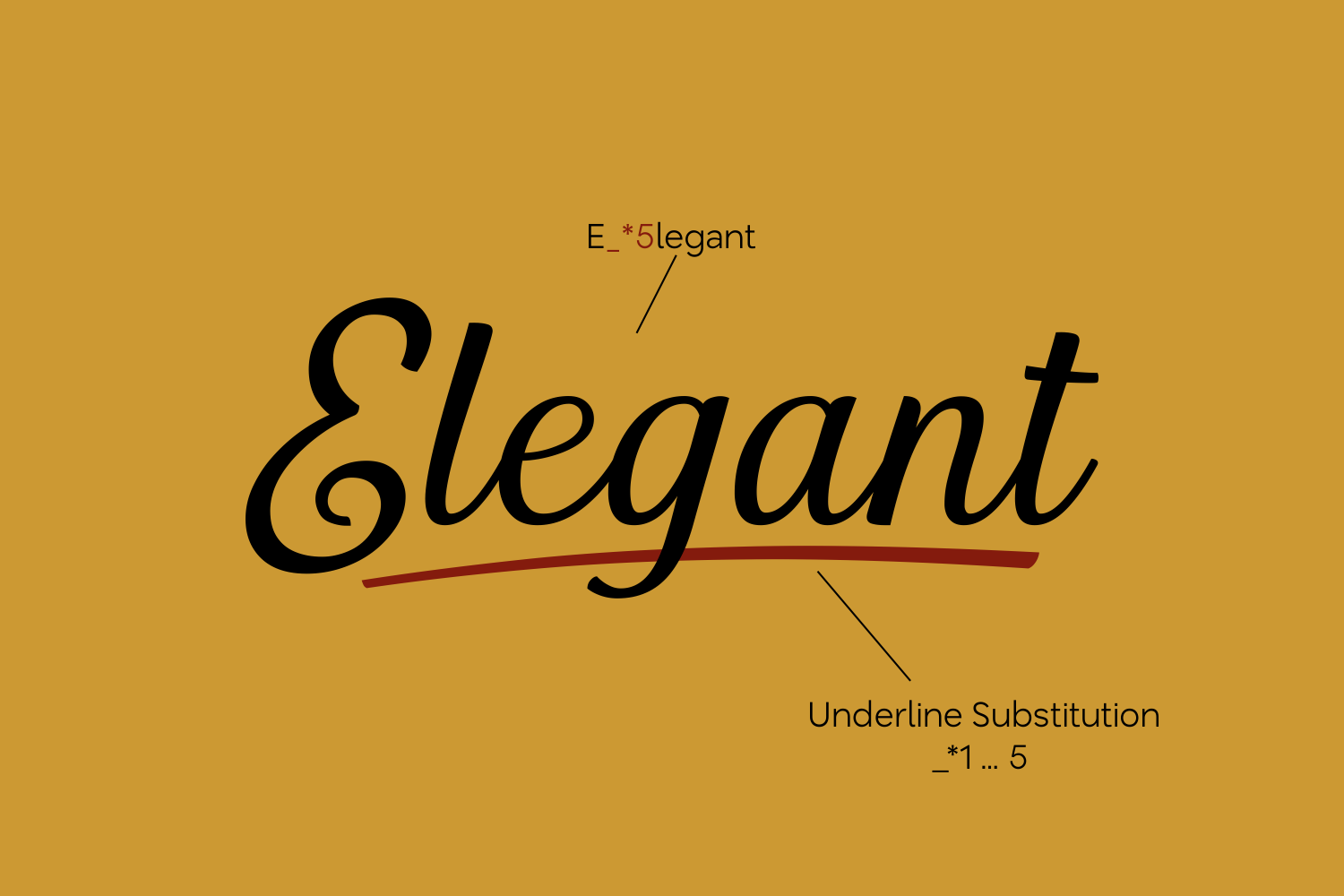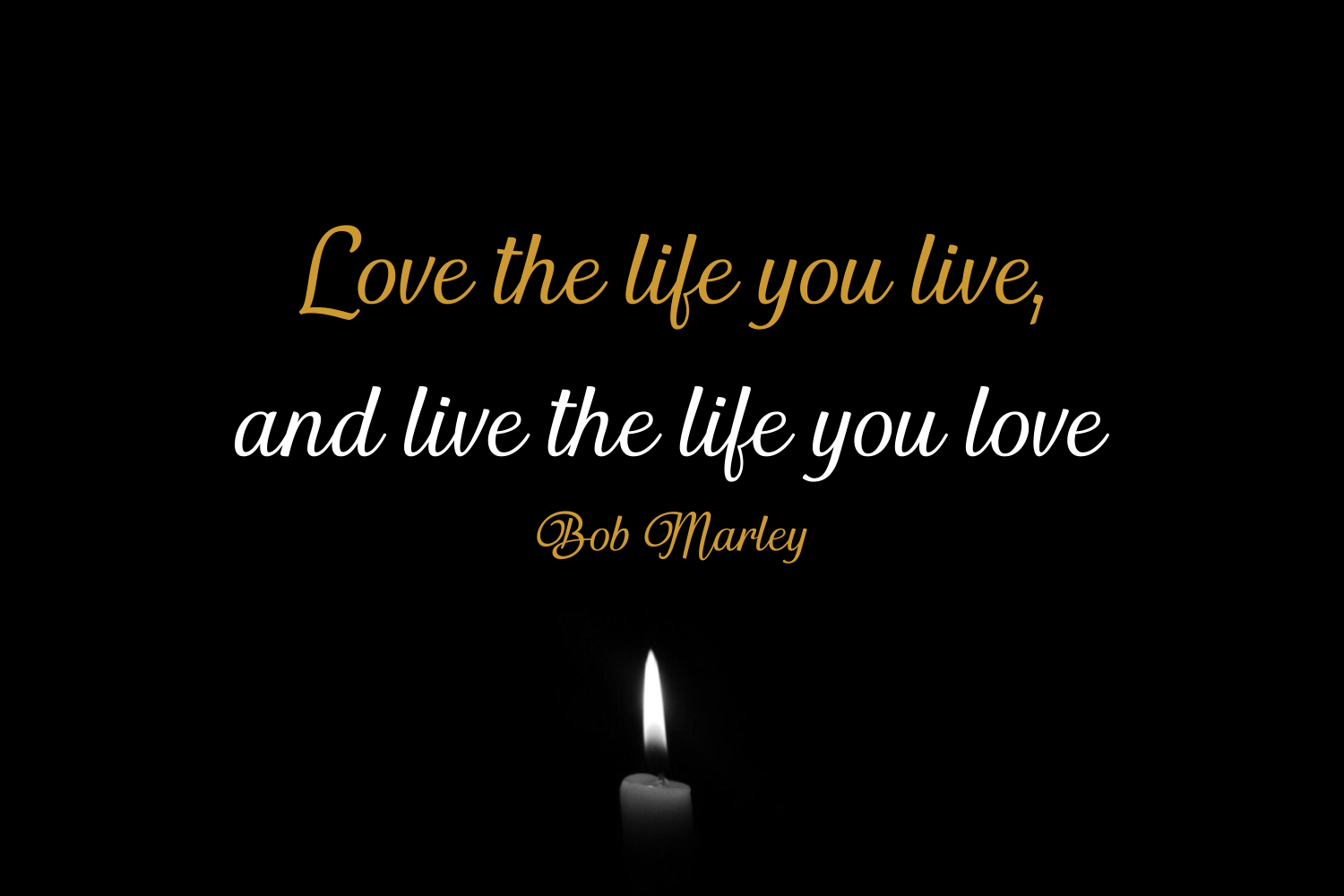
Whitby Font
About Whitby Font
Classic and elegant, Whitby is a great script font option for a wide range of design projects. Legible and clean, Whitby is definitely a go-to script font.